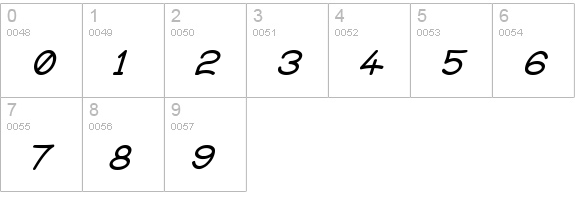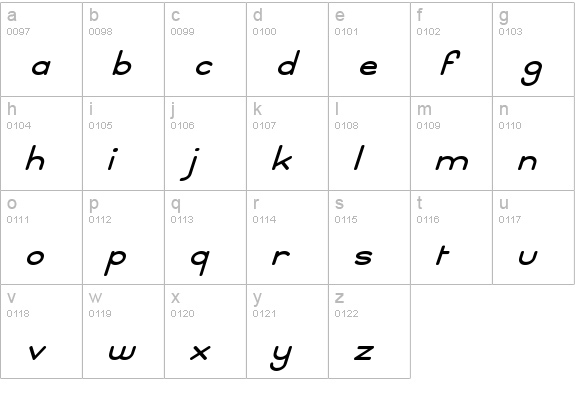
Copyright Violations Nudged Font Details
Copyright Violations Nudged font is a unique and eye-catching typeface that brings a rebellious and edgy touch to any design project. This font features irregular shapes and distorted letterforms, giving it a handcrafted and artistic feel. Perfect for creating bold headlines, posters, or branding materials that demand attention. The best part about Copyright Violations Nudged font is that it is available for free download at FontsMarket.com. This means you can easily incorporate this striking font into your projects without any extra cost. Don't miss out on the opportunity to add a touch of creativity and originality to your designs with this one-of-a-kind font. Download Copyright Violations Nudged font today and take your designs to the next level!